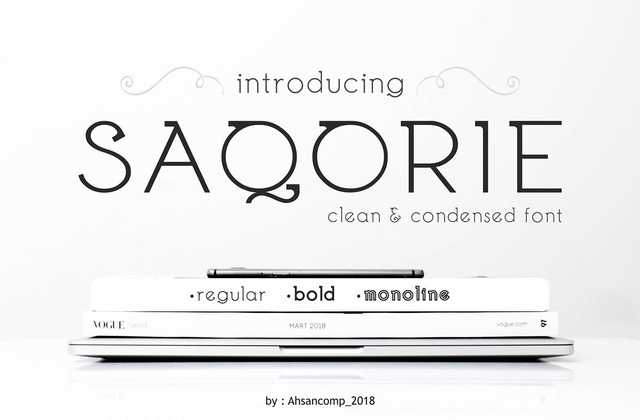
Saqorie Font
Saqorie Font excels in modern branding projects, social media graphics, fashion magazines, beauty product packaging, lifestyle blogs, creative agency portfolios, restaurant menus, boutique signage, wedding stationery, cosmetic advertisements, trendy app interfaces, contemporary art galleries, influencer content, luxury fashion campaigns, and stylish web headers where contemporary sophistication meets artistic flair.
This captivating typeface generates excitement through its innovative design philosophy that seamlessly blends geometric precision with organic fluidity. Saqorie Font stands out with its unique character variations, distinctive letter connections, and carefully crafted balance between readability and artistic expression. The font's modern aesthetic appeals to creative professionals seeking typography that makes bold statements while maintaining elegant sophistication. Its versatile nature allows for both subtle applications and dramatic headline presentations, making it an invaluable tool for designers who want to create memorable visual experiences that resonate with contemporary audiences.
The Saqorie Font family includes comprehensive weight variations such as Thin, Light, Regular, Medium, Semi-Bold, Bold, Extra-Bold, and Black, each accompanied by matching italic styles. This extensive range provides designers with exceptional flexibility for creating sophisticated typographic hierarchies. The font family also features alternate characters, ligatures, and special glyphs that enhance creative possibilities and allow for unique customization options.
Creative professionals consistently choose Saqorie Font Free Download for projects requiring cutting-edge typography that captures attention and conveys modernity. This versatile typeface performs exceptionally well across digital platforms, maintaining its distinctive character and readability at various sizes. The font's contemporary appeal makes it particularly effective for brands targeting younger demographics and design-conscious consumers who appreciate innovative aesthetics.
Whether you're developing a startup brand identity, creating social media campaigns, designing editorial layouts, or crafting premium packaging solutions, Saqorie Font delivers exceptional visual impact. Its modern sophistication ensures your designs will stand out in today's competitive marketplace while maintaining professional credibility. The font's ability to adapt to various design contexts while preserving its unique personality makes it an essential resource for contemporary designers seeking typography that perfectly balances creativity with functionality and commercial appeal.